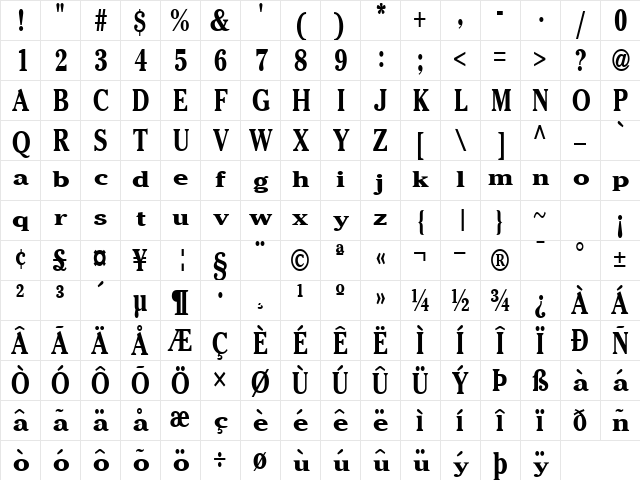
Thrill Regular
Thrill Family
Thrill Regular
Design Context for Thrill
Thrill is a composed and adaptable typeface that performs quietly and consistently across a wide range of design contexts.
Pro Tip: Use Thrill in both headline and body roles to test its range before committing to a single application.